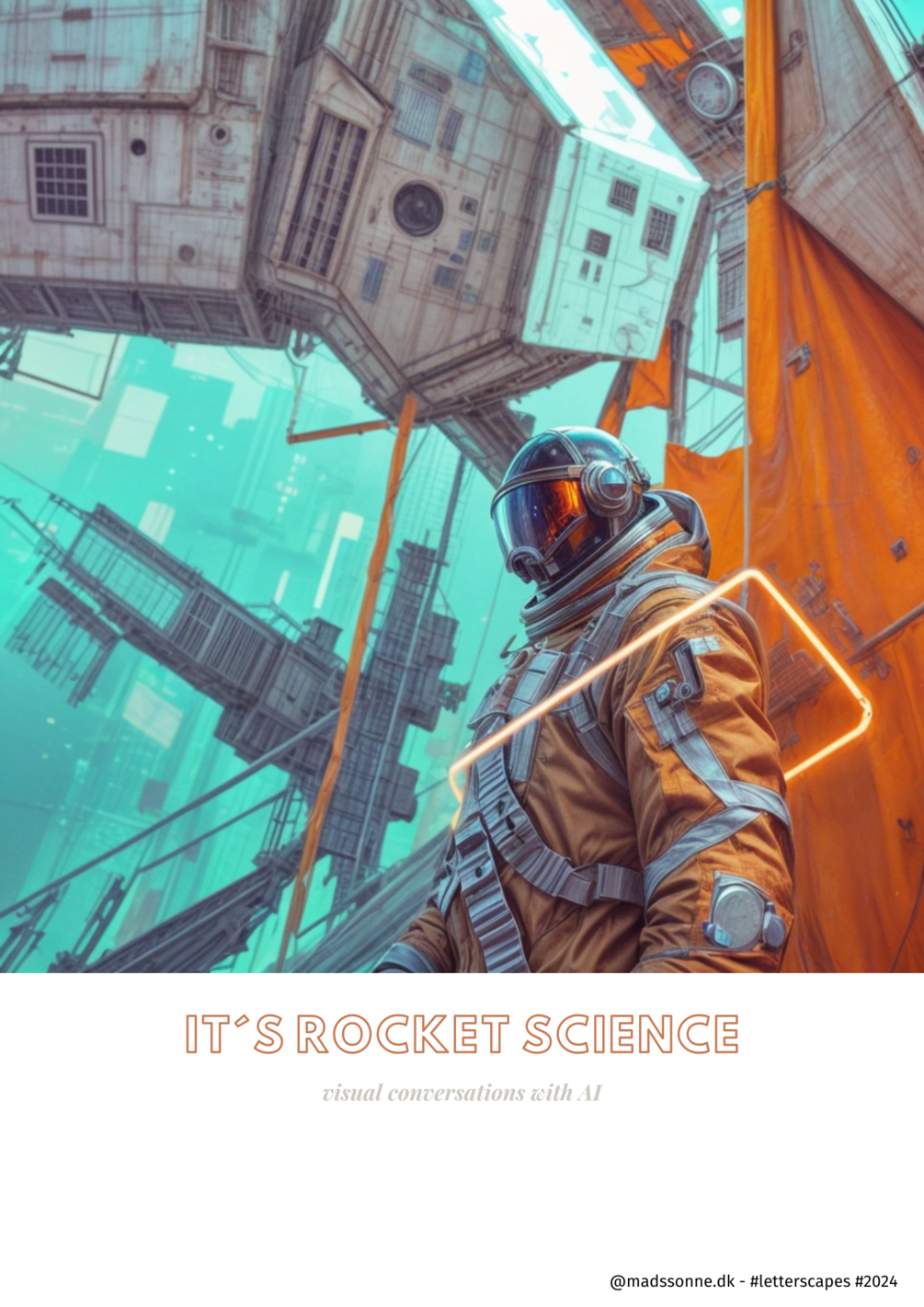
Have you exchanged views with an AI? or even had a visual conversation?
This is "It´s rocket science".
Mechanisms, starring into space, light and shade, waiting for the voices from your home.
The starting point is a fragment of a wall carried out in Rødovre, my home city, where I did a 13 mtr x 2 mtr wall, stating "we y me"
And then added a squeeze of AI into the mix and stylize it even more.